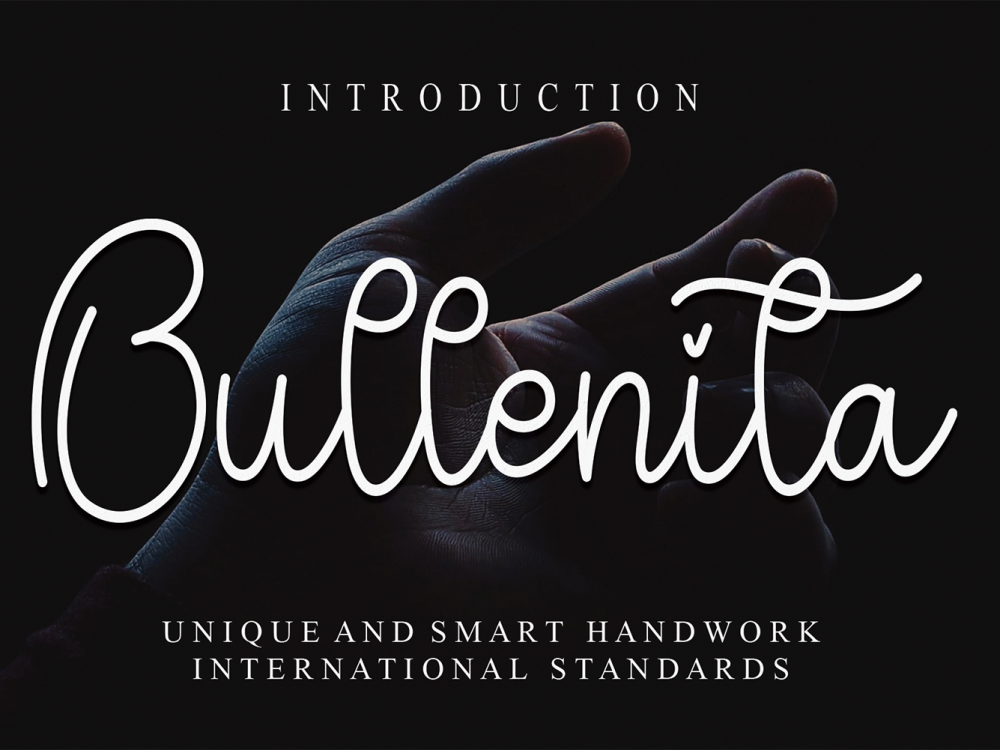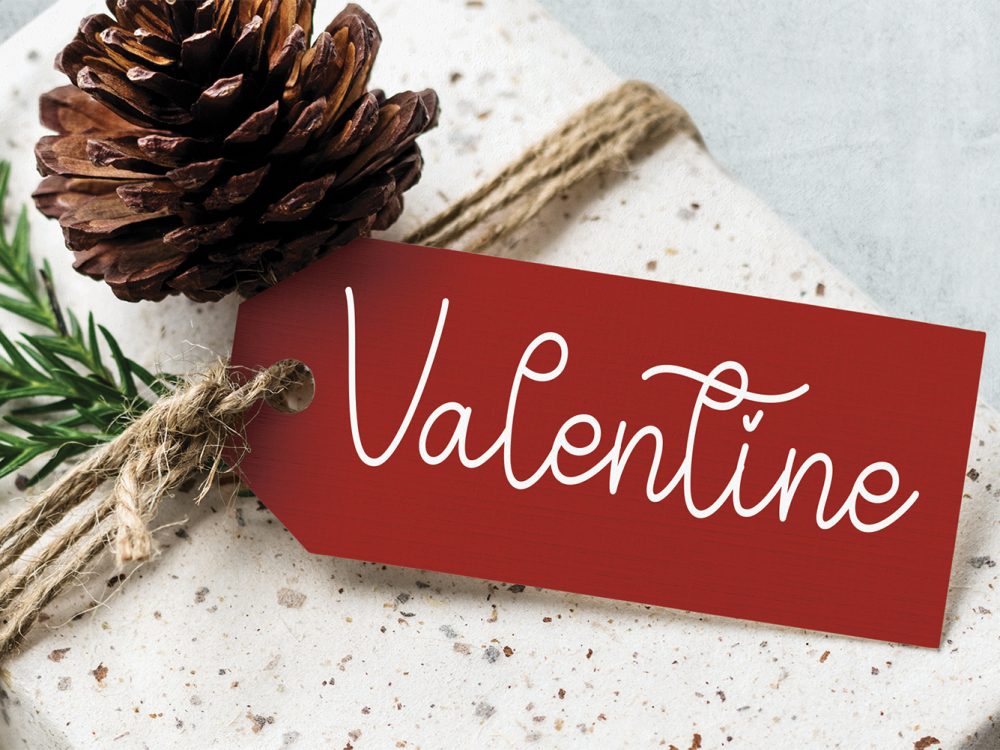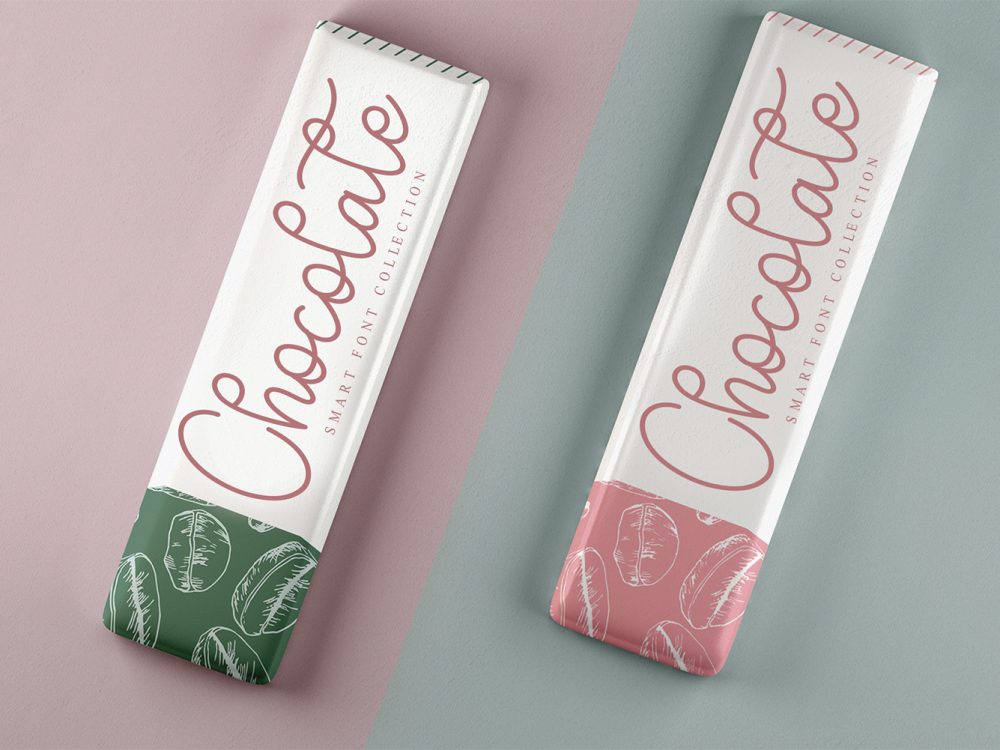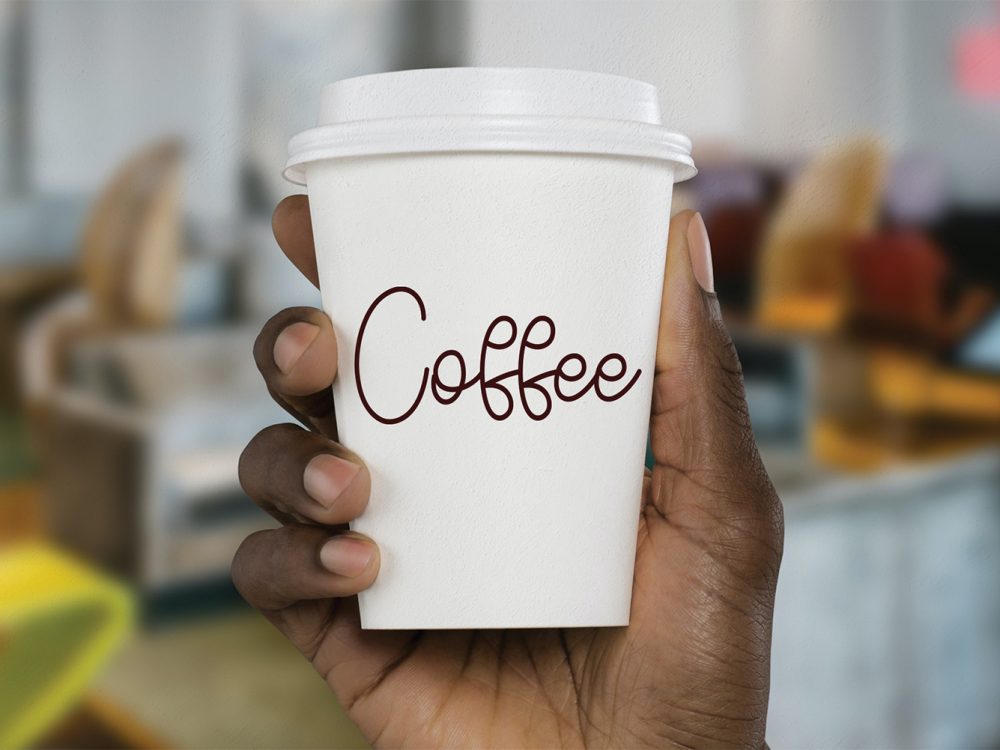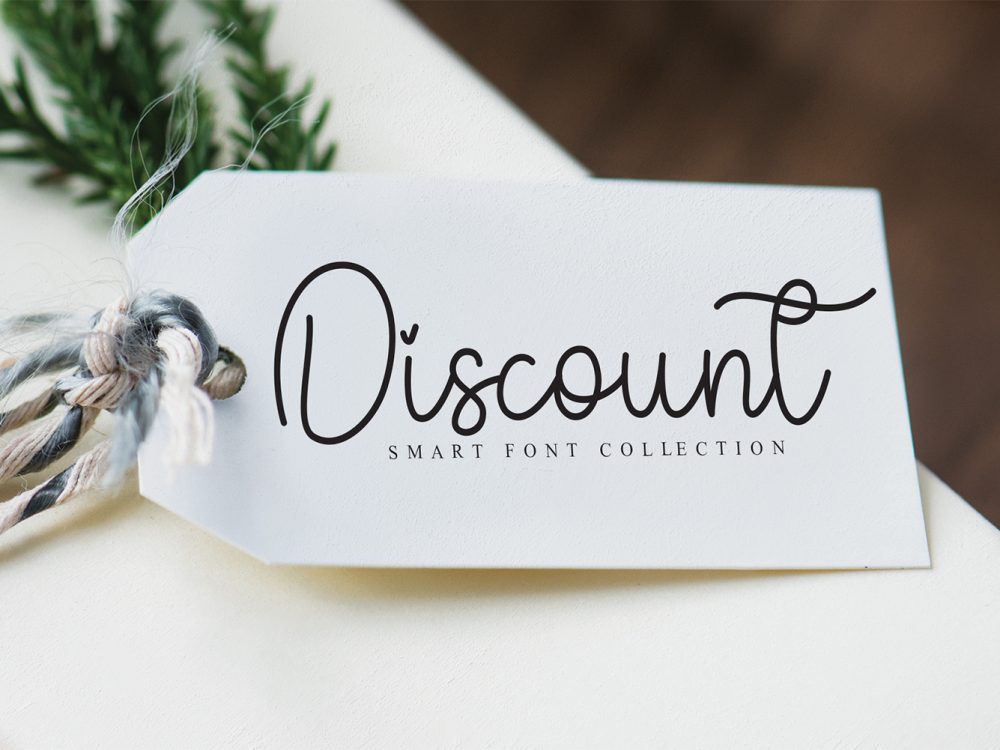
Bullenita Free Font
Unveiling Bullenita Free Font, an exquisite and enduring handwritten font. An optimal selection for crafting captivating logos, establishing impactful branding, and accentuating memorable quotes. Infused with distinctive beauty, each letter possesses a unique and enchanting essence that breathes life into your design, adding an irresistible allure to your creations. If you like it don’t forget to check out the full version.